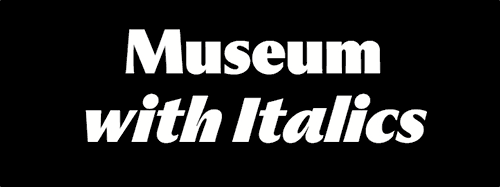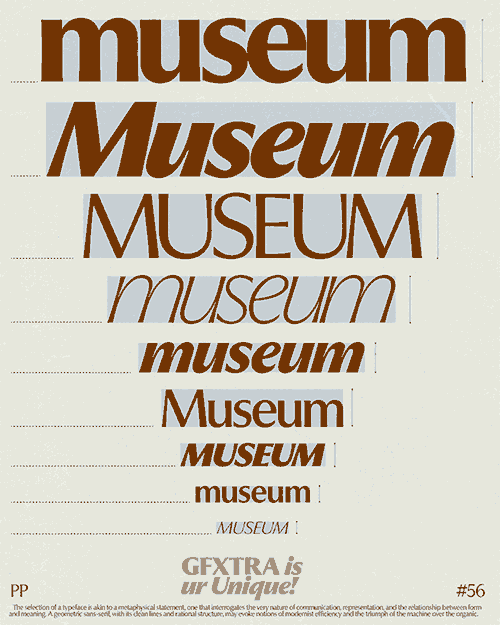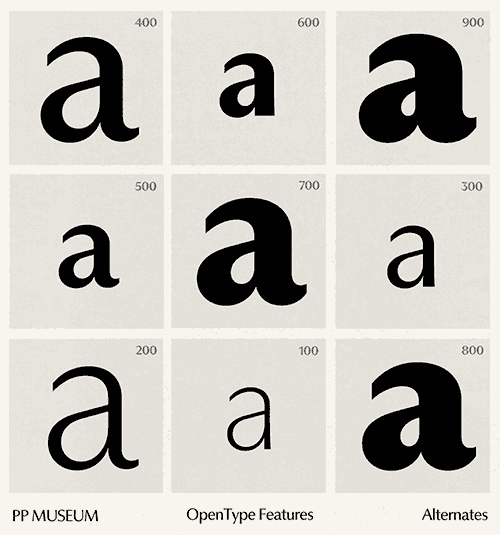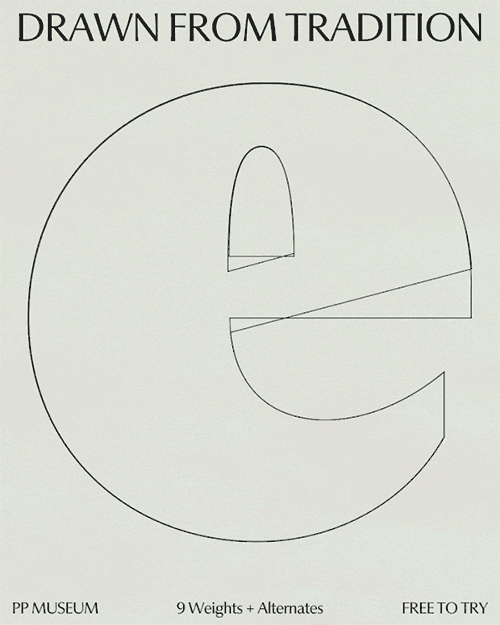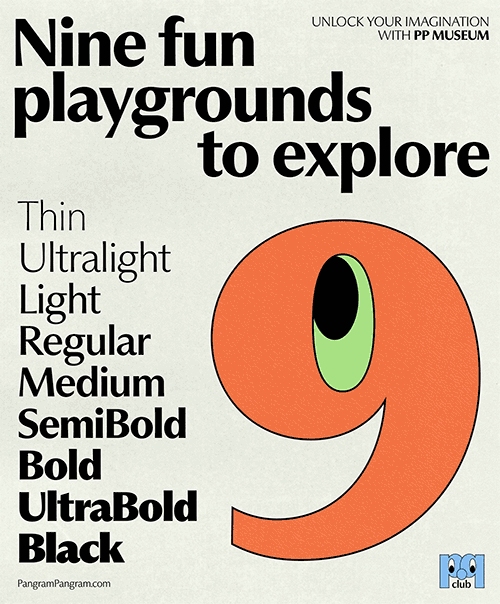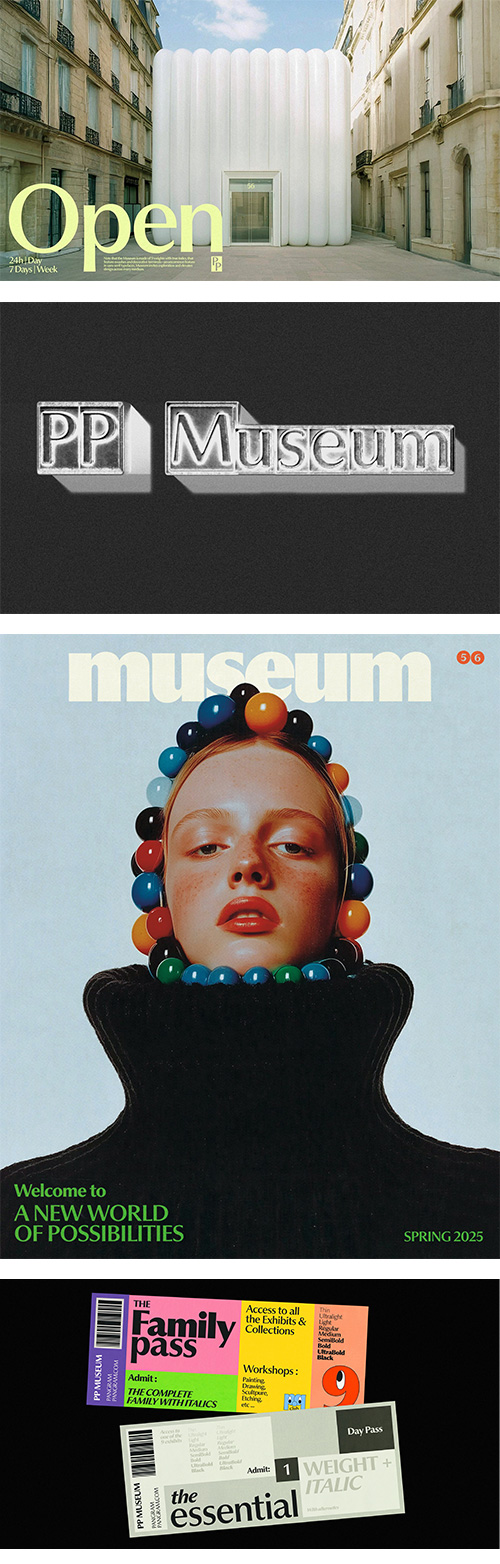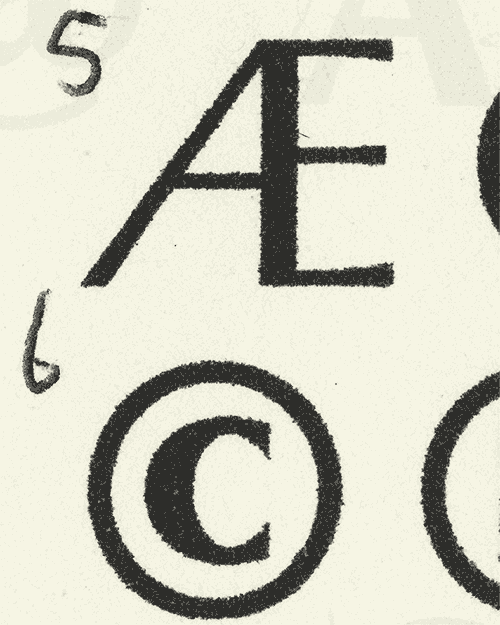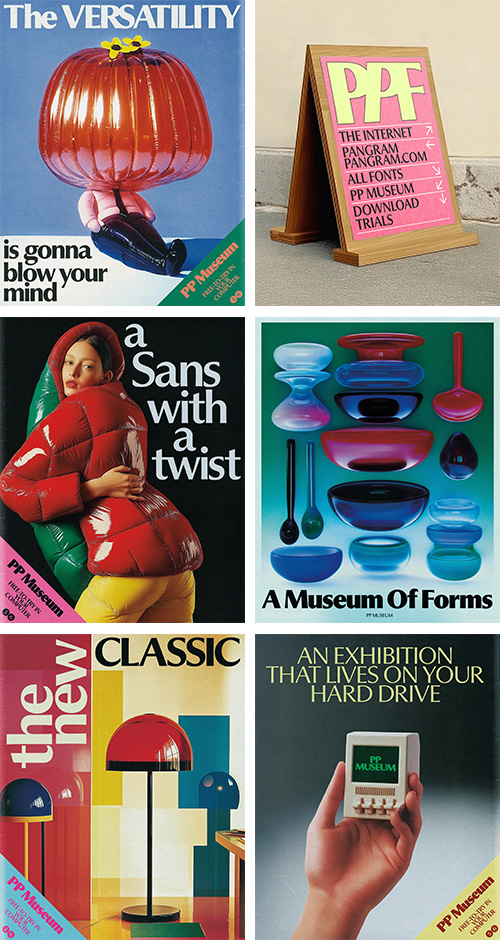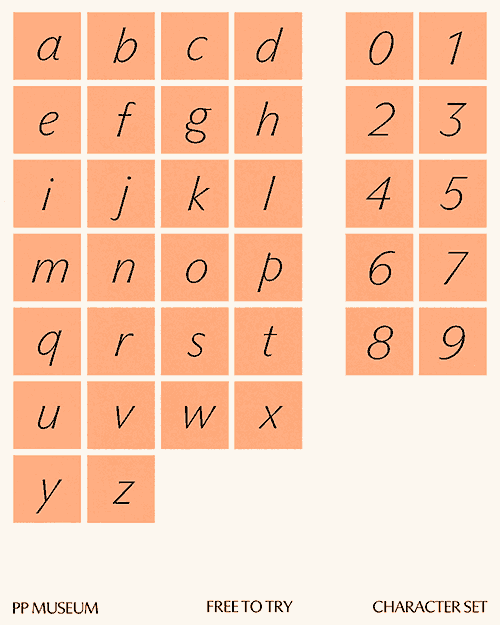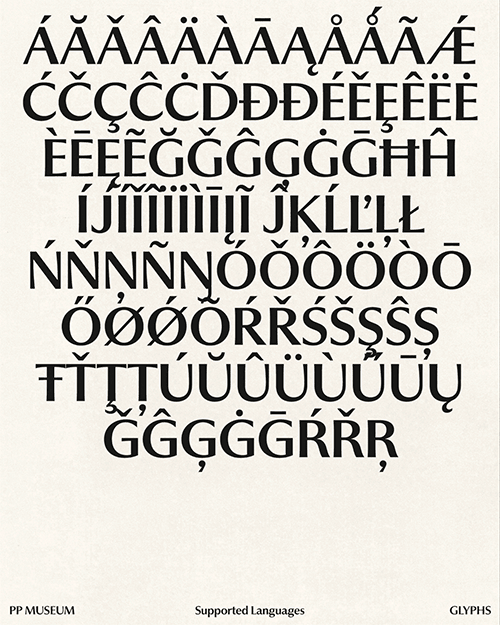
- By PangramPangram: Museum is a masterfully crafted humanist sans-serif typeface, embodying the perfect blend of elegance and versatility. PP Museum is a masterfully crafted humanist sans-serif typeface, embodying the perfect blend of elegance and versatility. This remarkable typeface draws inspiration from the meticulous sketches of Optima found on aged banknotes, reinterpreted with a modern sensibility that enhances both readability and sophistication. While technically a sans-serif, Museum’s subtle terminal flares echo a glyphic quality rarely seen in contemporary type design, imbuing it with a distinct personality. Its conceptual foundation is further enriched by extensive research into the typography of vintage tomes, book covers, spines and museum-centric objects — an homage embedded in its very name.